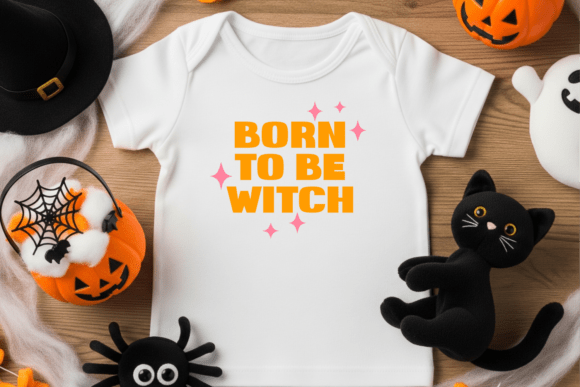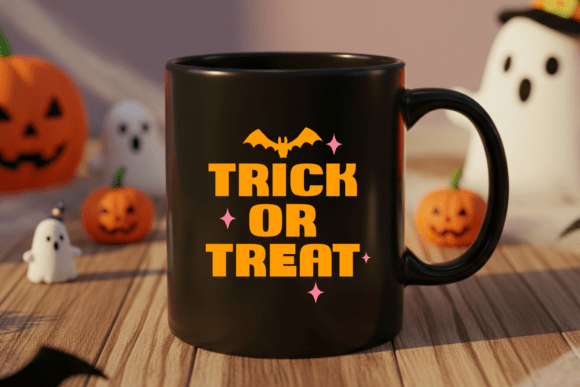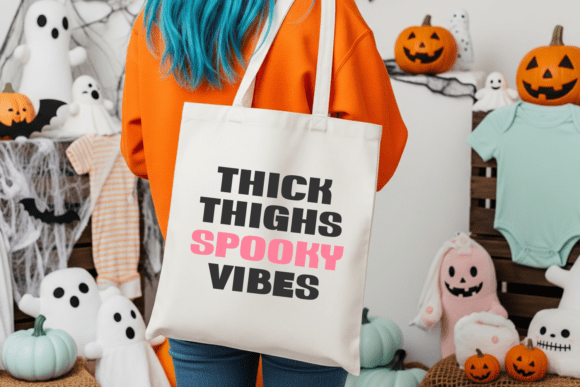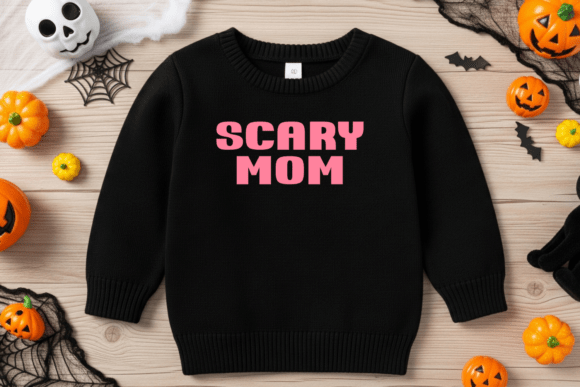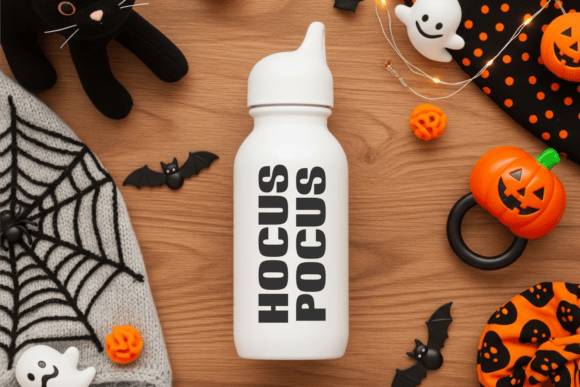
Introduction to Haunted Nights Font Font
Fonts play a crucial role in design, and the Haunted Nights Font font is a typeface that brings both character and versatility to any project. Whether you’re working on a branding project, a website, or a print design, the Haunted Nights Font font offers a unique style that can elevate your work.
Experience the thrill of the spooky season with the Haunted Nights font, a unique display sans serif perfect for all your eerie creative needs.
This distinctive font infuses a ghoulish aesthetic into various personal and commercial projects, making it just right for a Halloween-themed t-shirt, a haunting mug, or a chilling tumbler Itβs even an ideal choice for adding an element of fright to tote bags and pillows.
The Haunted Nights Font font is more than just a typeface β it’s a design tool that helps you communicate your message with style and clarity. Its unique character set and versatile design make it suitable for a wide range of applications, from elegant invitations to bold headlines.
With its carefully crafted letterforms and balanced proportions, the Haunted Nights Font font ensures readability and visual appeal across all mediums.
What makes Haunted Nights Font font special?
The Haunted Nights Font font stands out with its unique design, exceptional readability, and versatility across various design applications.